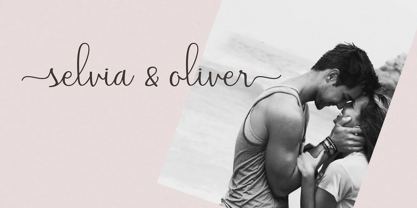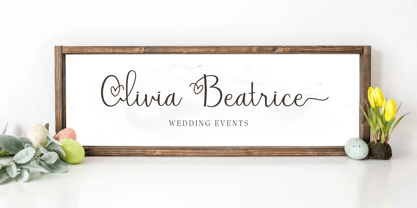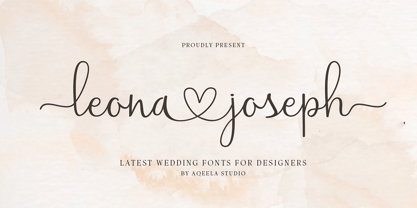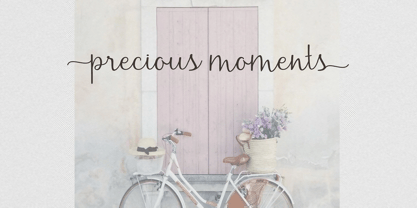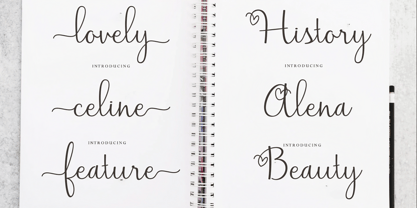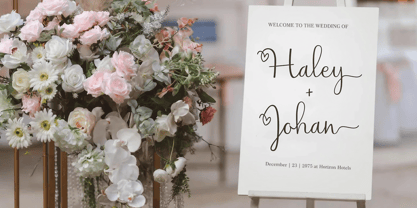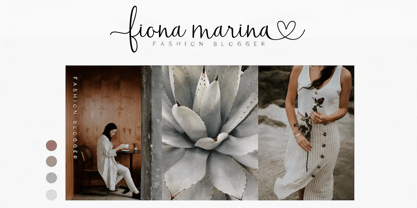
Leona Joseph
Die Schriftfamilie Leona Joseph wurde von Muhammad Nasir entworfen und von Aqeela Studio veröffentlicht. Leona Joseph enthält 1 Stile. Mehr über diese Familie
Leona Joseph exudes both sophistication and grace. This font is perfect for wedding invitations, thank you notes, inspirational quotes, greeting cards, logos, business cards, and any creative project that calls for a personalized, handwritten vibe.
PUA encoded for seamless access to all glyphs and swashes, this font features an elegant mix of varied baselines, delicate lines, exquisite glyphs, and gorgeous alternates that will elevate any design with its timeless charm.